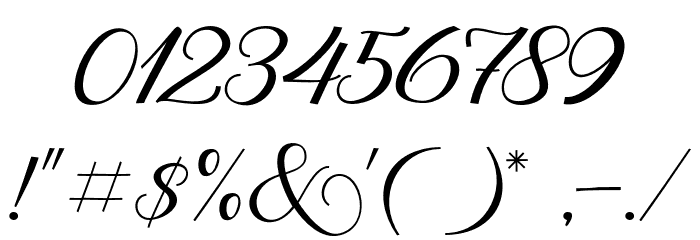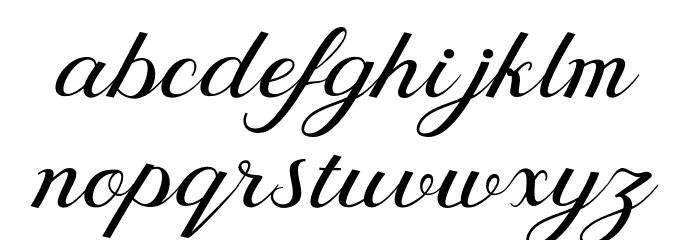
BehindScript Font
BehindScript Description
This elegant script font features flowing, cursive letterforms that exude sophistication and grace. The uppercase letters are ornate with intricate loops and flourishes, while the lowercase letters maintain a smooth, connected style that enhances readability. The numerals are equally stylish, complementing the overall aesthetic with their graceful curves. Special characters are designed with the same attention to detail, making them suitable for decorative purposes. This font is perfect for projects that require a touch of elegance and class.
An elegant script font with flowing, cursive letterforms and intricate flourishes from Uncategorized fonts.
- Font: BehindScript
- Overall Style: Elegant
BehindScript UPPERCASE
BehindScript LOWERCASE
BehindScript OTHER CHARS